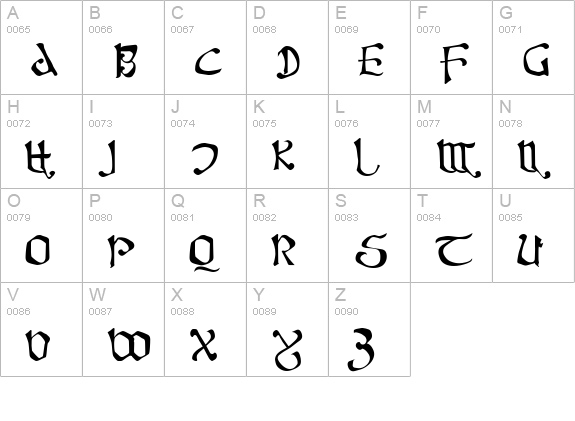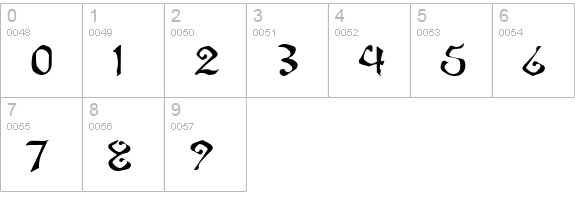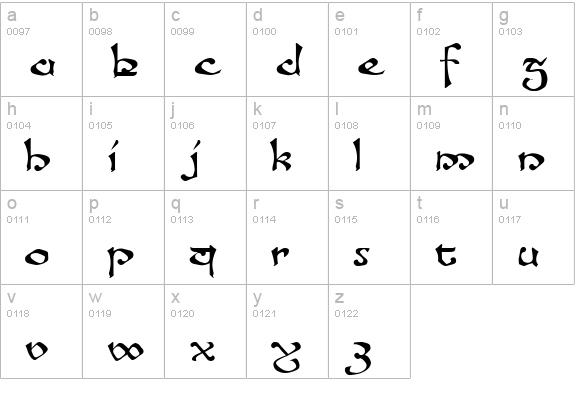
Fanjofey AH Font Details
Fanjofey AH font is a stunning display typeface that exudes elegance and sophistication. With its unique design and intricate details, this font is perfect for adding a touch of luxury to your projects. The sleek curves and sharp edges of Fanjofey AH font make it a versatile choice for a wide range of design applications, from branding to packaging to invitations. The best part? Fanjofey AH font is completely free to download at FontsMarket.com. With just a few clicks, you can add this exquisite font to your collection and start creating beautiful designs that will impress your audience. Don't miss out on the opportunity to elevate your projects with Fanjofey AH font - download it today and let your creativity shine!